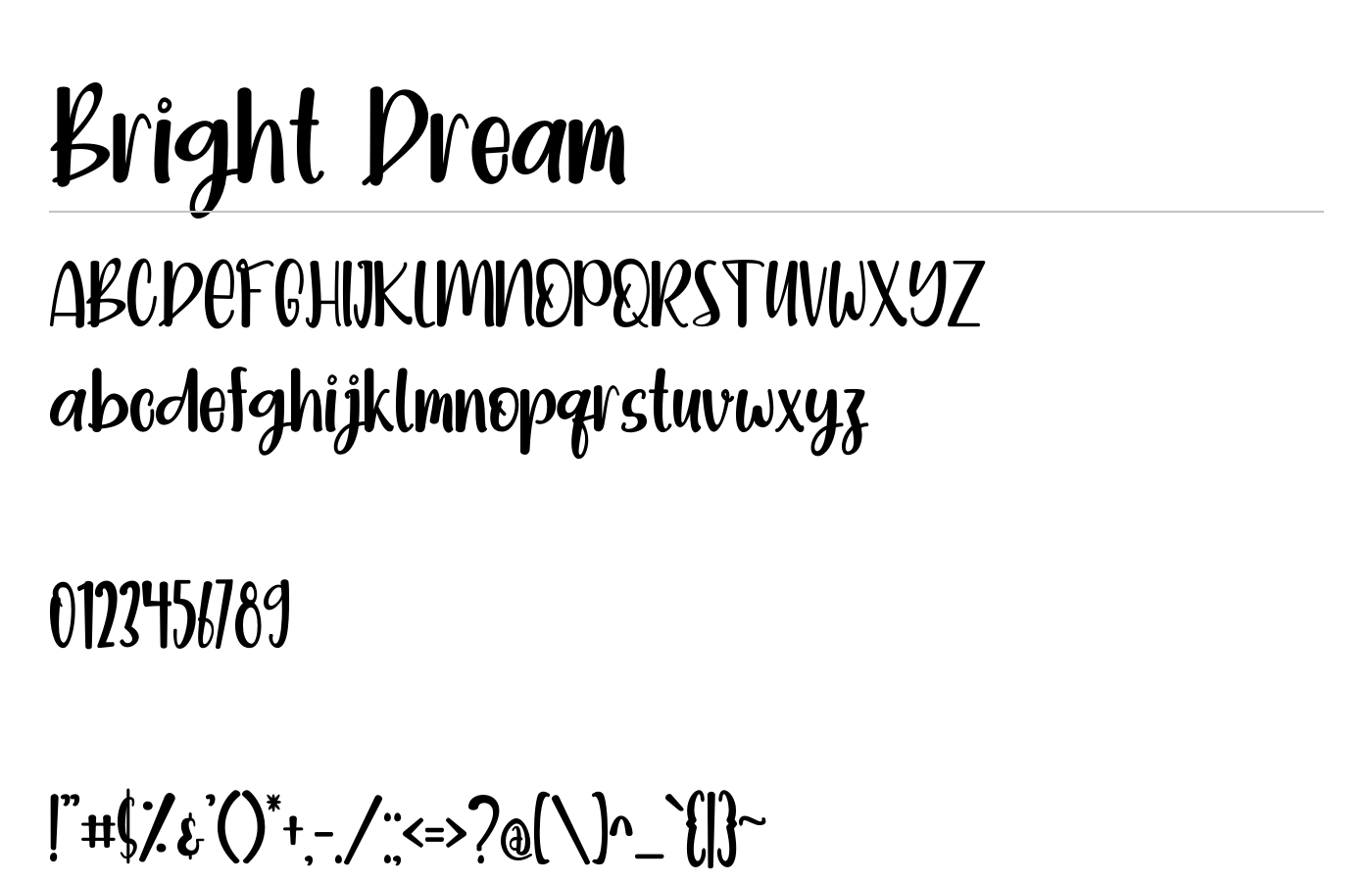
Bright Dream is a playful and lively handwritten font with a casual, friendly vibe. Its tall, slightly condensed letterforms with varied stroke widths and quirky character shapes make it perfect for creative and informal designs like children’s books, greeting cards, or youthful branding. This font brings a cheerful, approachable feel to headlines and display use where personality and warmth are key.
Bright Dream Font
About Bright Dream Font
| Font family | Bright Dream Font |
| Designer | Arief Tri Sulistiyono |